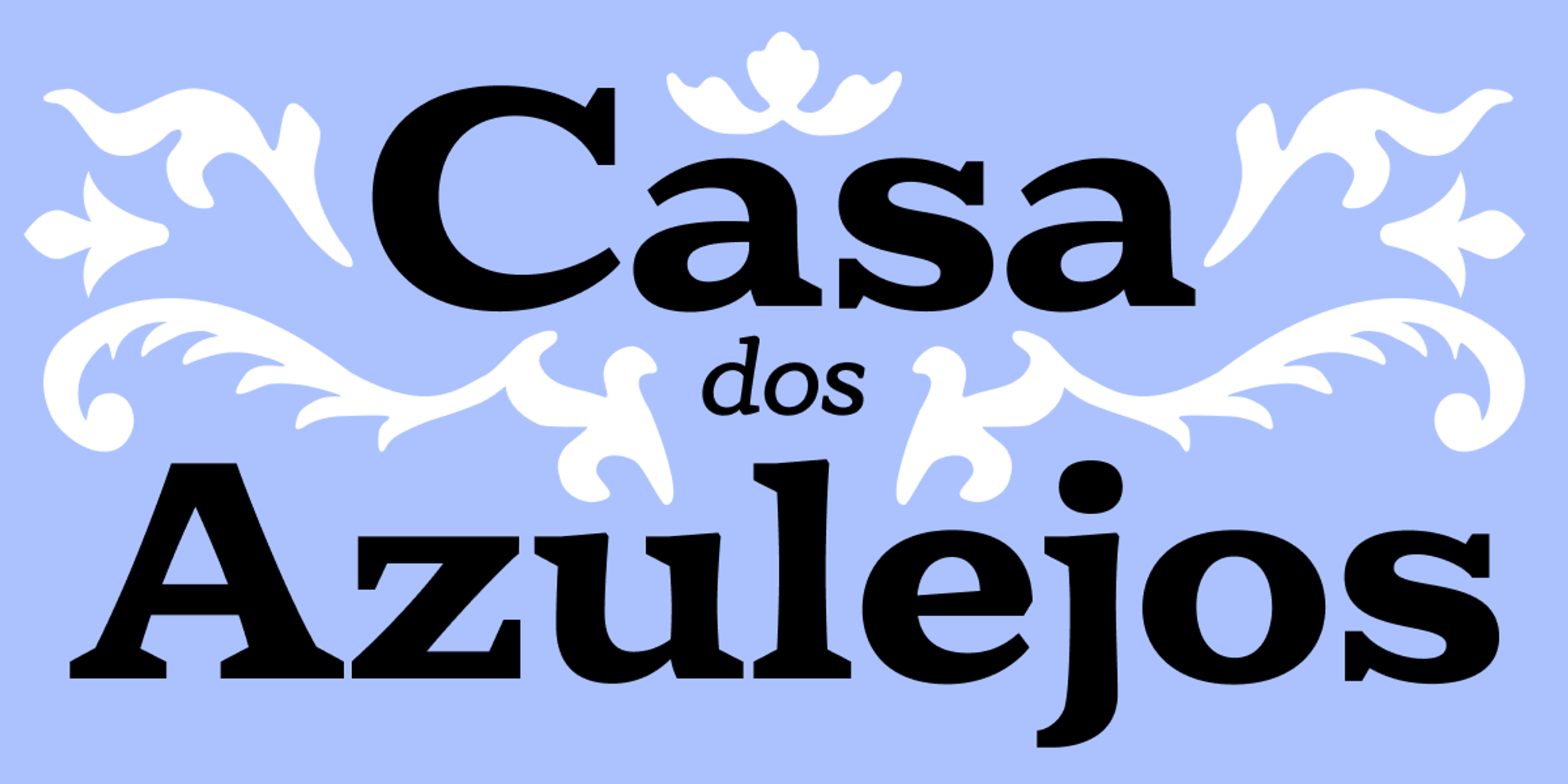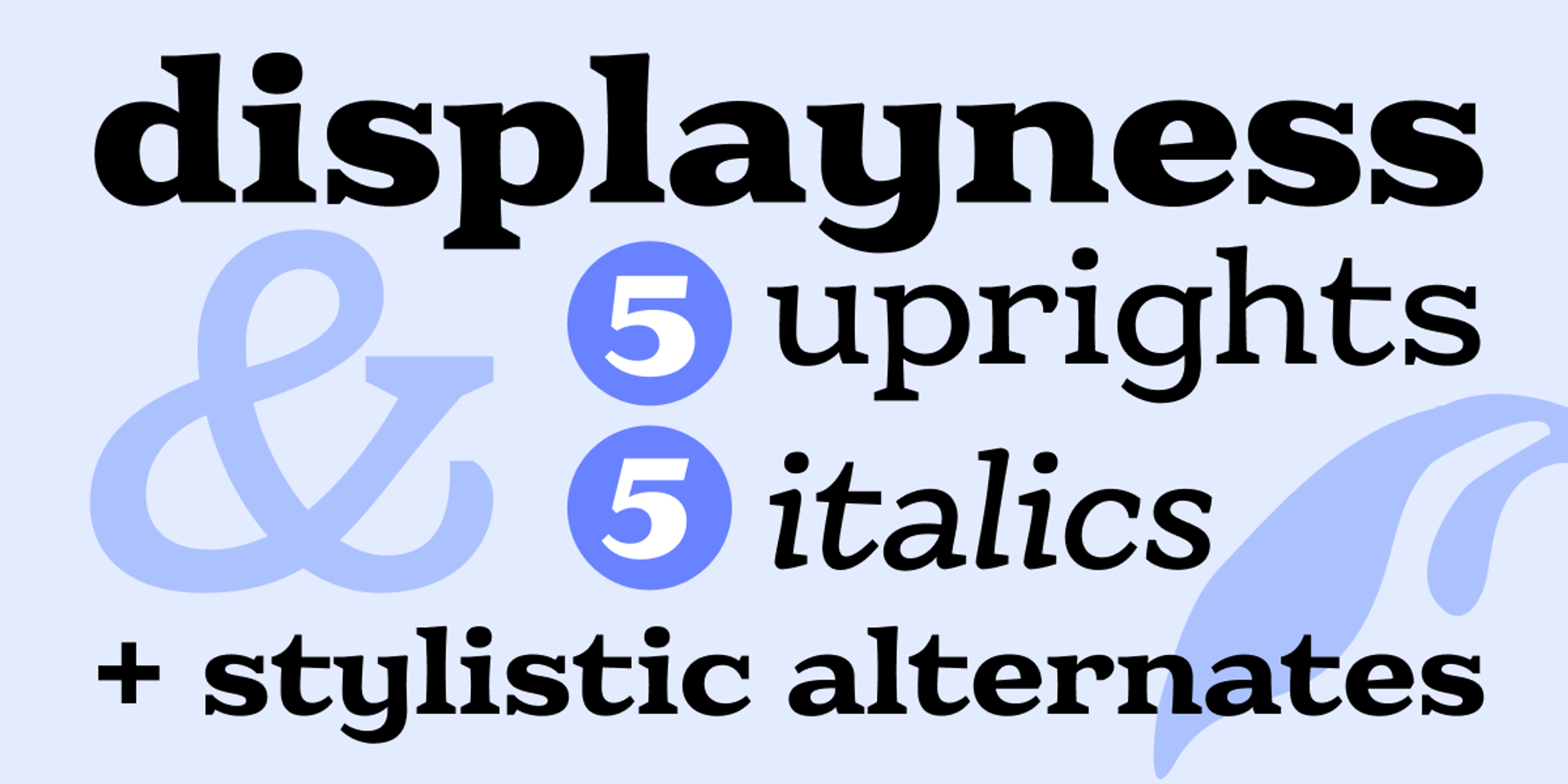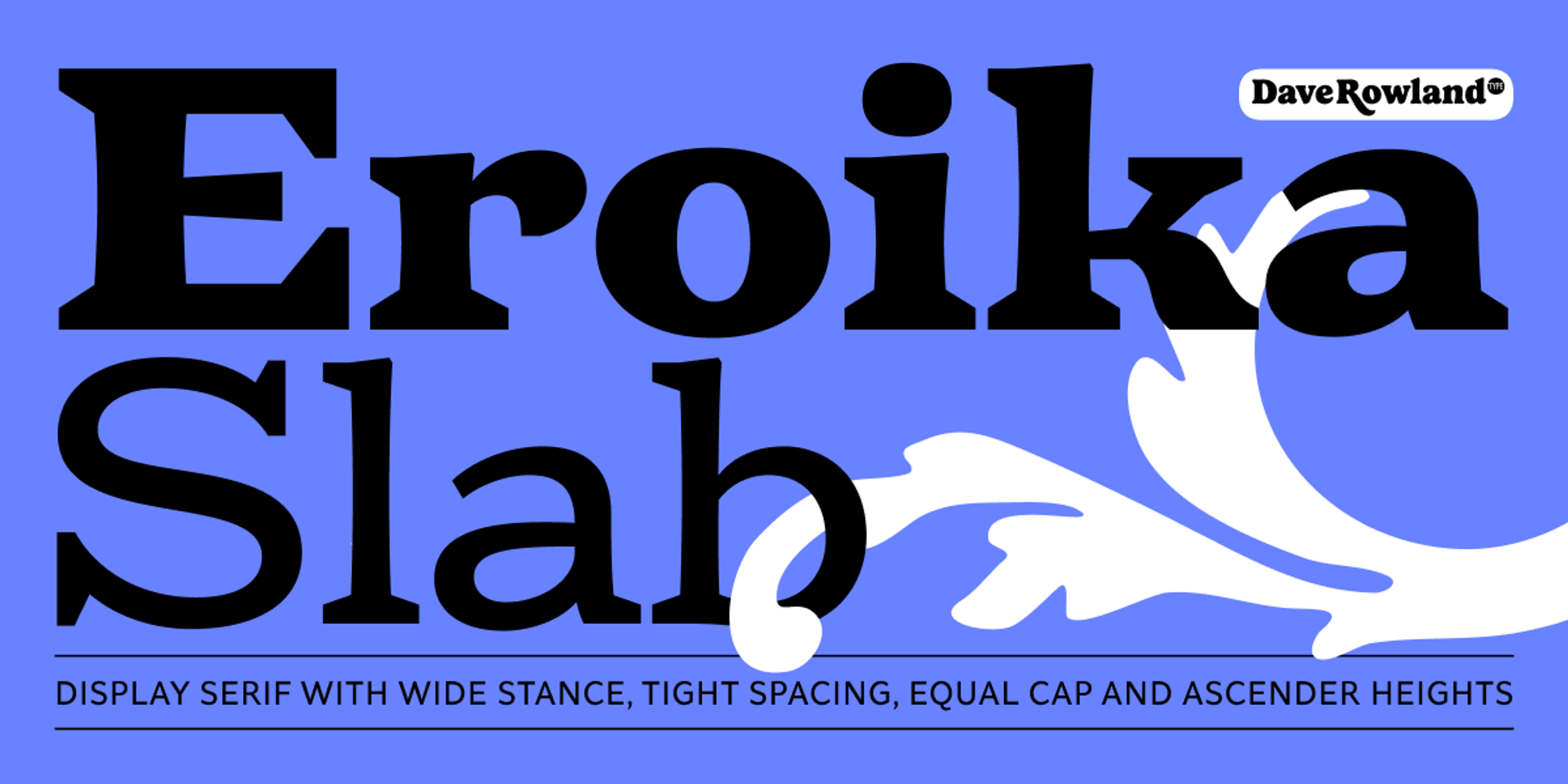
Eroika Slab Fonts
Eroika Slab
Eroika Slab is a robust display serif intended to be set large. Eroika’s “displayness” stems from its wide stance, tight spacing, equal cap and ascender heights, flared stems, and large x-height. The italics, in particular, are quite unorthodox, with their vertical serif cut-offs and foot serifs where most fear to tread (’scuse the pun). Perfect for book covers, craft beer logos, boxing paraphernalia, and tattoo magazine pull quotes. And probably a whole lot more besides!
- Discretionary Ligatures
- Fractions
- Old Style Numerals
- Stylistic Alternates
- Superscript